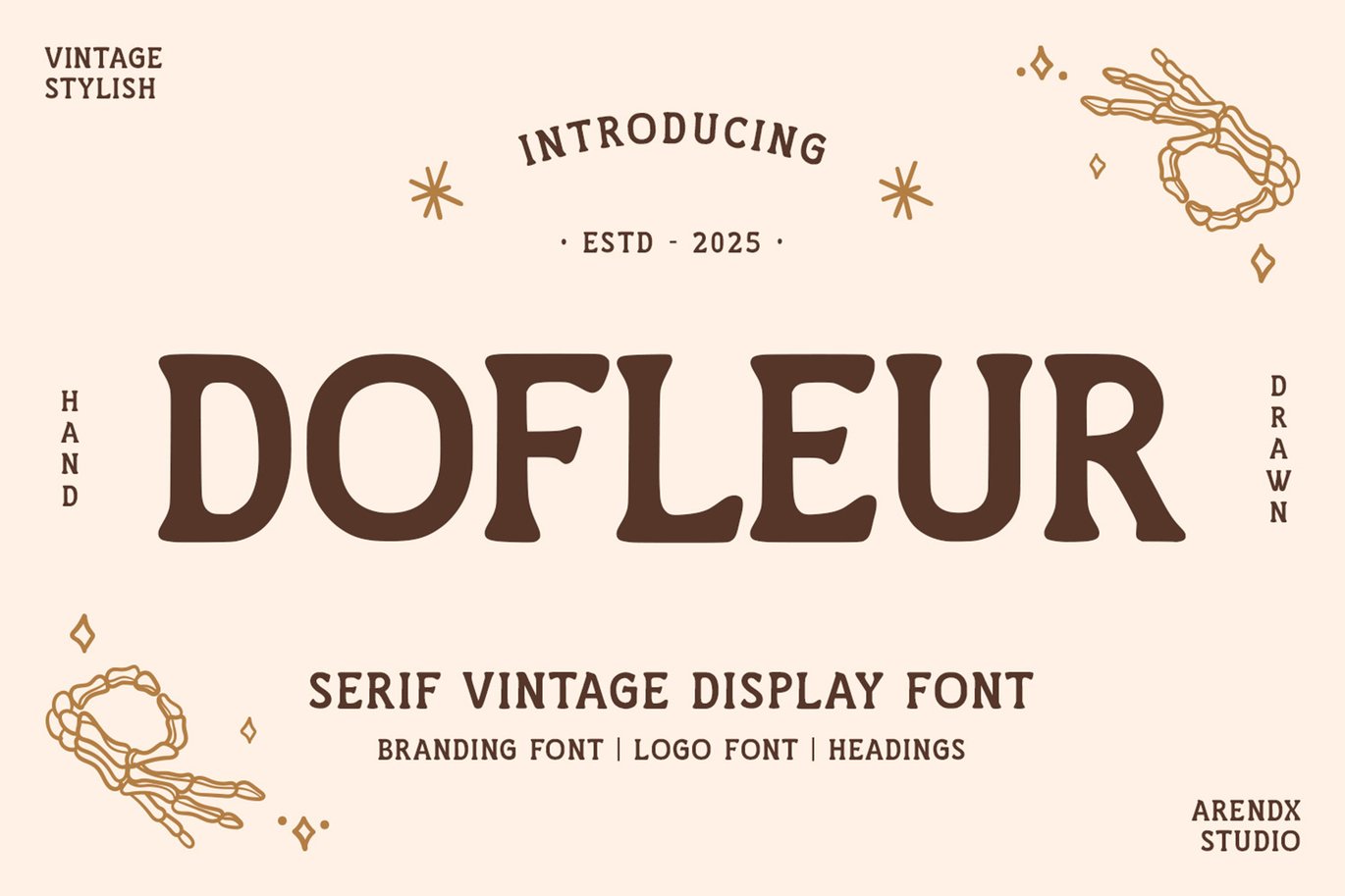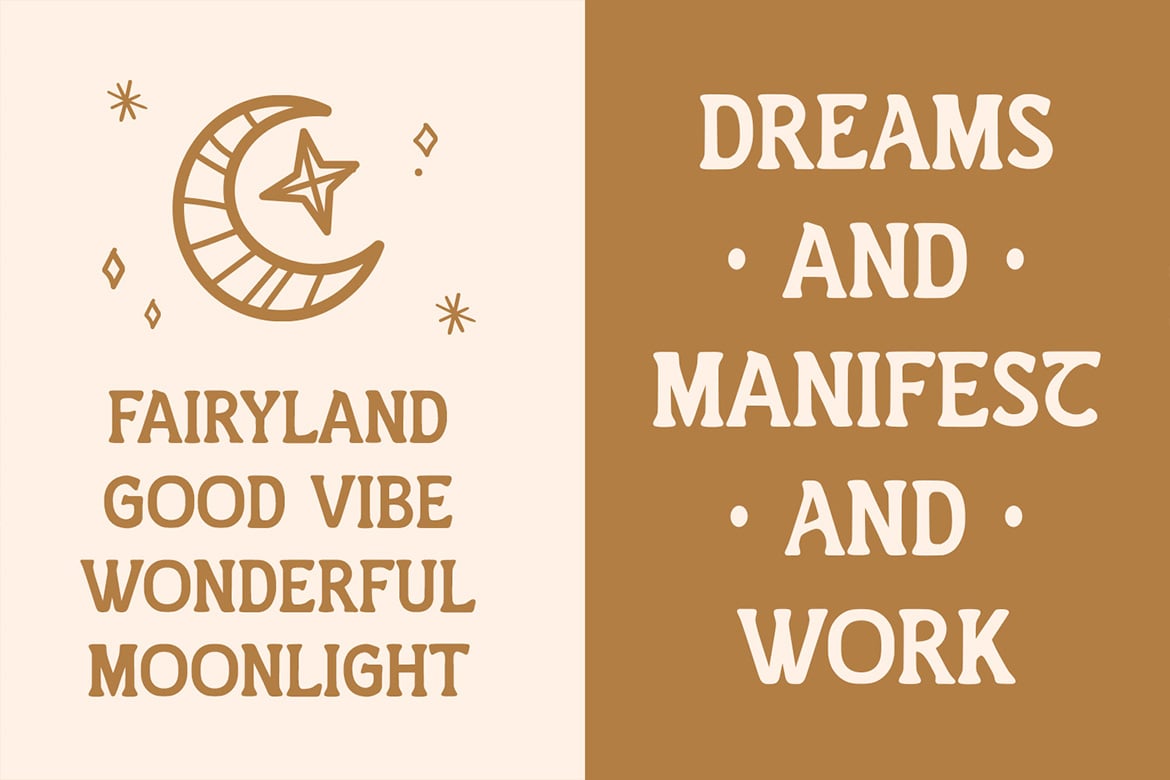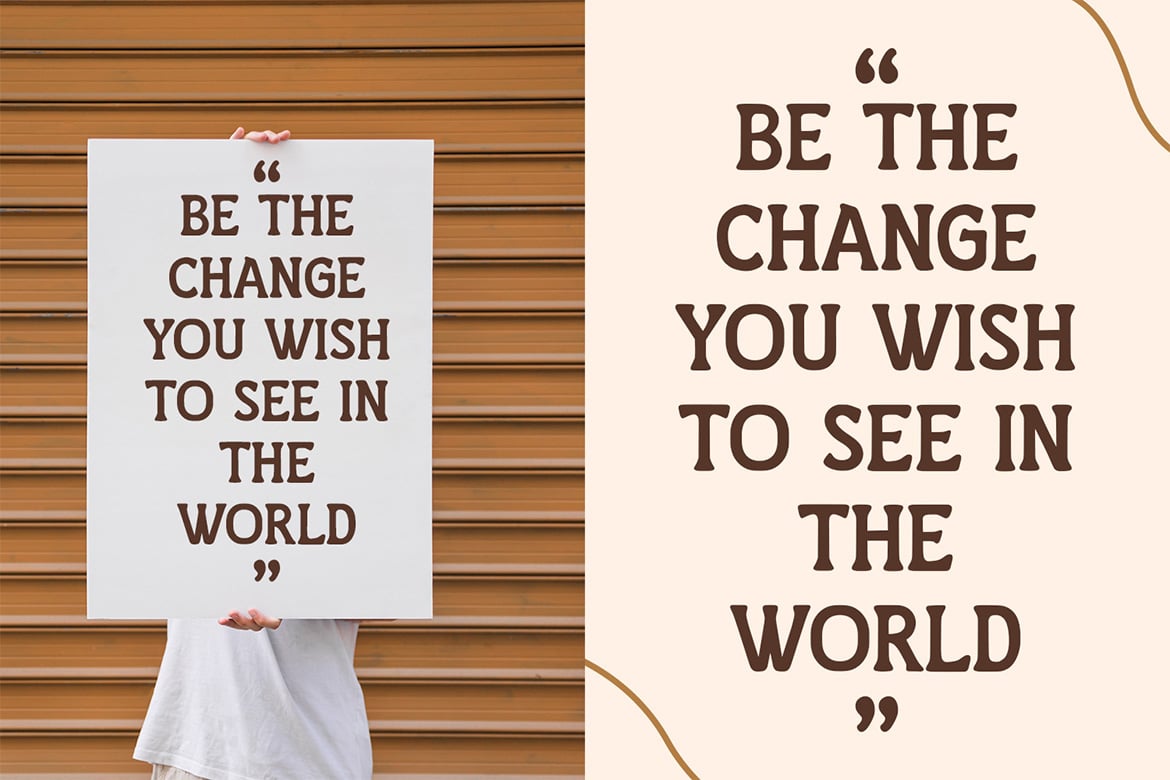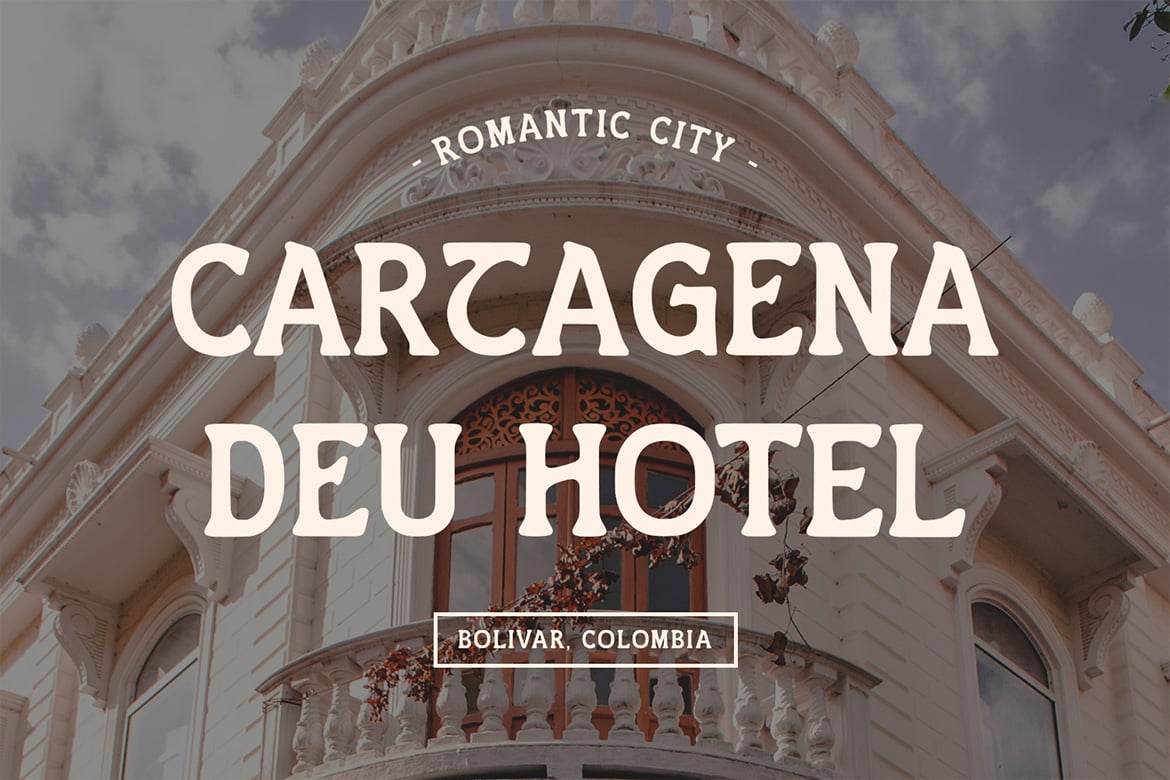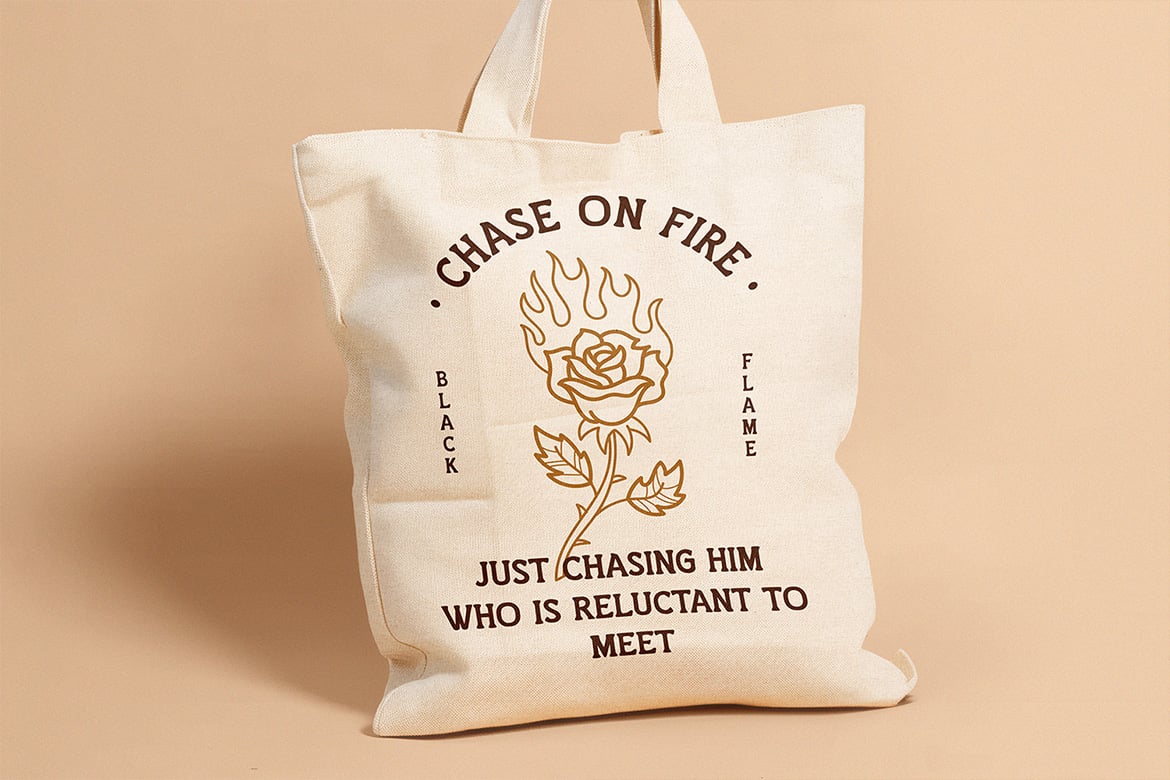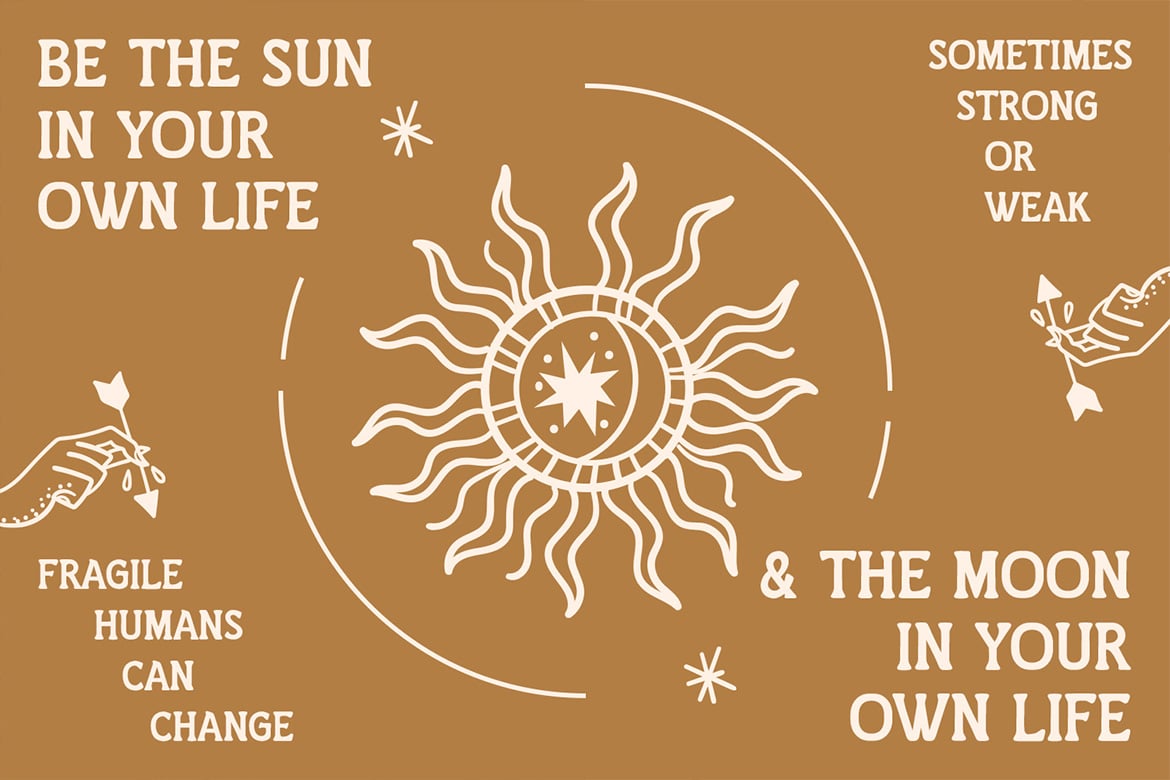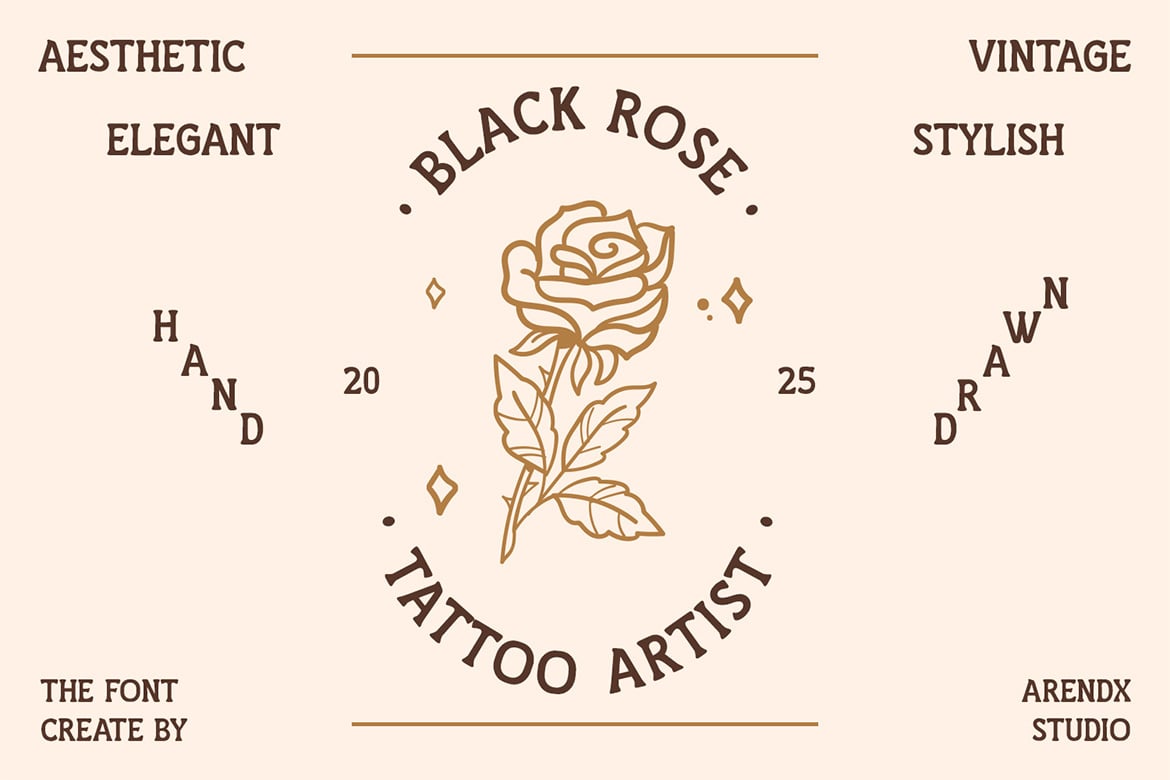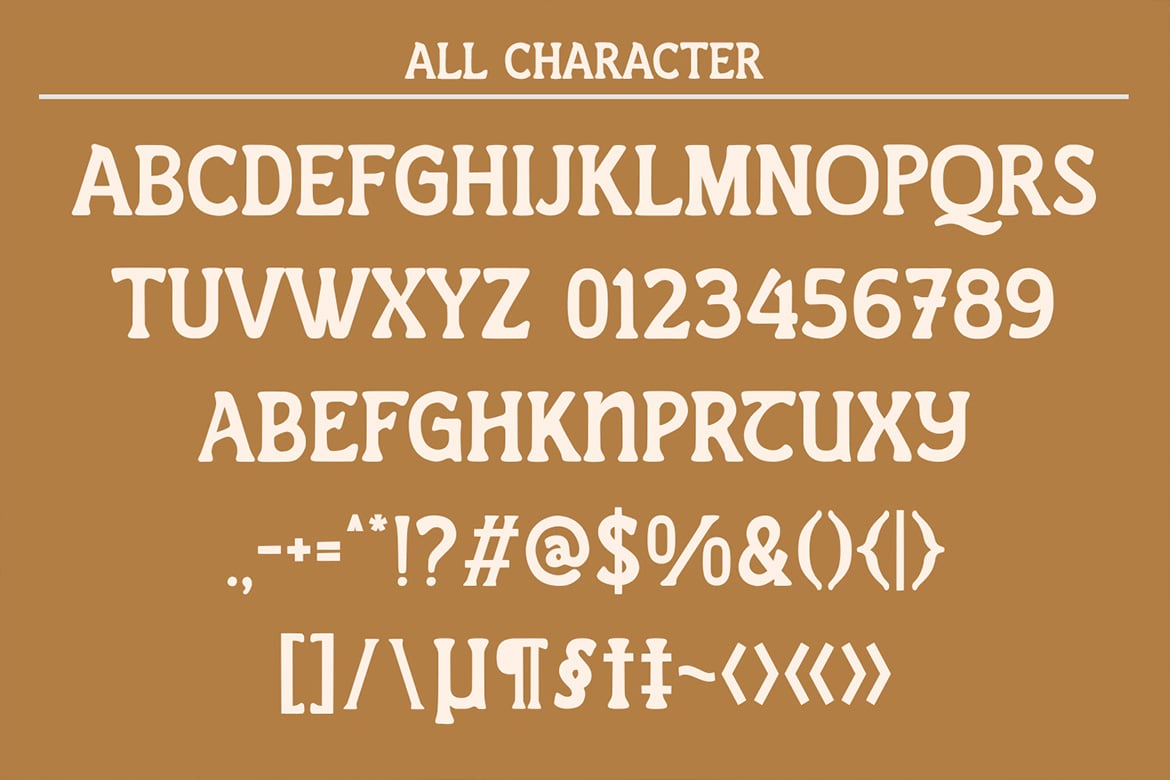
Dofleur Typeface
Font Description: Dofleur
Dofleur is a vintage serif hand-drawn typeface that exudes the timeless elegance of early 20th-century European typography, infused with the organic charm of artisan brushwork. Inspired by the delicate yet deliberate strokes of hand-painted café signs, vintage book covers, and faded perfume labels, Dofleur blends refined serifs with subtle imperfections—ink blots, tapered endings, and uneven baselines—to create a font that feels both sophisticated and human.
### Key Features:
- Hand-Drawn Serifs: Graceful, flared terminals with slight wobbles for authenticity.
- Vintage Texture: Subtle ink bleeds and paper grain effects (optional stylistic alternates).
- Warm Contrast: Thick-and-thin strokes reminiscent of brush or calligraphy pens.
- Full Character Set: Uppercase, lowercase, numerals, ligatures, and multilingual support.
### Aesthetic Vibe:
Imagine a Parisian perfumery’s hand-lettered shop sign (circa 1920s), or the title page of a well-loved poetry book. Dofleur’s delicate curves and weathered details evoke nostalgia without sacrificing readability.
### Perfect For:
- Luxury branding (cosmetics, wine labels, stationery).
- Vintage book covers or editorial headers.
- Romantic wedding invitations.
- Pair with: A minimalist sans-serif (e.g., Futura) for contrast, or a flowing script for layered elegance.